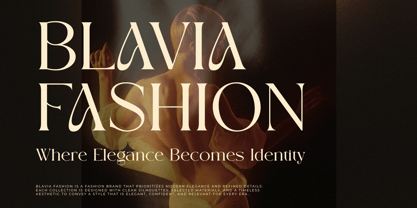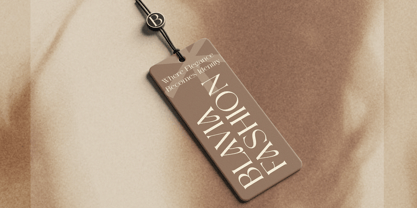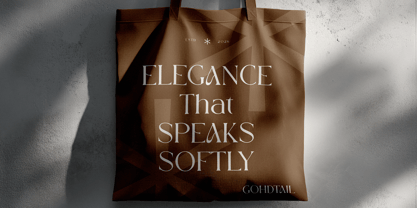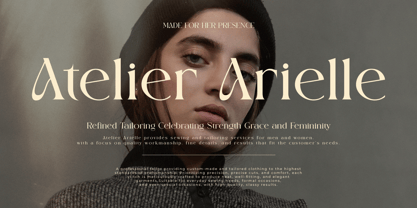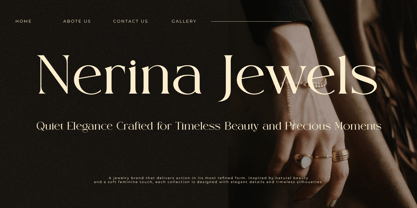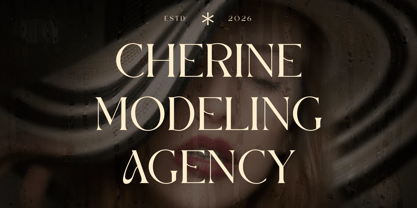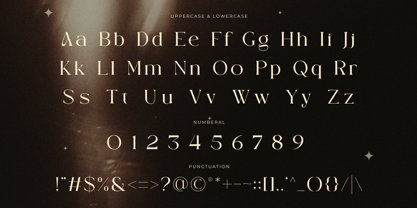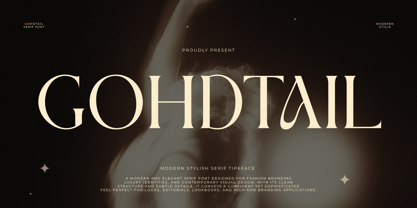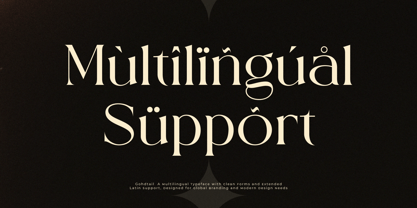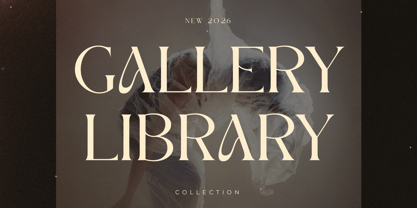
Gohdtail
Die Schriftfamilie Gohdtail wurde von Farchan entworfen und von Gridline Type veröffentlicht. Gohdtail enthält 1 Stile. Mehr über diese Familie
Introducing Gohdtail the elegant, beautiful, and modern Serif. With its modern and minimalist look, Gohdtail brings a luxurious, classy, ​​and clean style to your projects such as websites, modern logos, brand identities, social media quotes, wedding stationery, magazines, and more! Gohdtail features unique and classy capital letters A to Z and also comes with unique alternates making Gohdtail a beautiful font that can be customized for various projects and jobs you want. Gohdtail is perfect for: logos, brands, wedding invitations, business cards, greeting cards, posters, magazines, social media, agenda prints, and websites. FEATURE: * Easy to Use (Includes a guide on how to use the font) * Compatible with: Adobe Illustrator, Photoshop, Canva, Procreate, etc. * Quick Response Support * Uppercase and lowercase letters * Multilingual Characters * Numbers & punctuation Hope you enjoy our fonts & if you have any questions, feel free to Contact us & We are happy to help I appreciate your interest and I hope you enjoy this font!